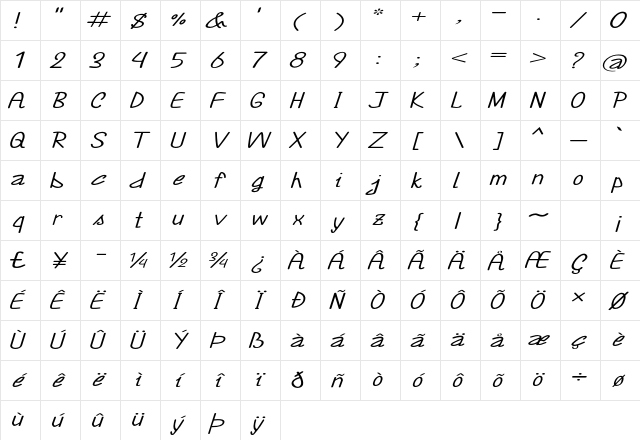
Annarvin Extra-expanded Italic
Style: Extra-expanded Italic
Annarvin Family
Annarvin Extra-expanded Italic
Design Context for Annarvin
Annarvin is a composed and adaptable typeface that performs quietly and consistently across a wide range of design contexts. The slanted form adds forward momentum and visual energy.
Pro Tip: Use Annarvin for emphasis, pull quotes, and subheadings where its slanted energy can add rhythm to the layout.